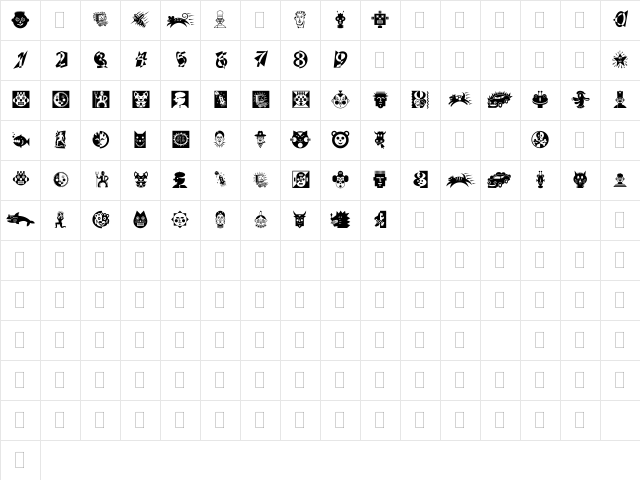
DF Attitudes LET Plain Free Font
DF Attitudes LET Plain
Design Context for DF Attitudes LET
DF Attitudes LET is a composed and adaptable typeface that performs quietly and consistently across a wide range of design contexts.